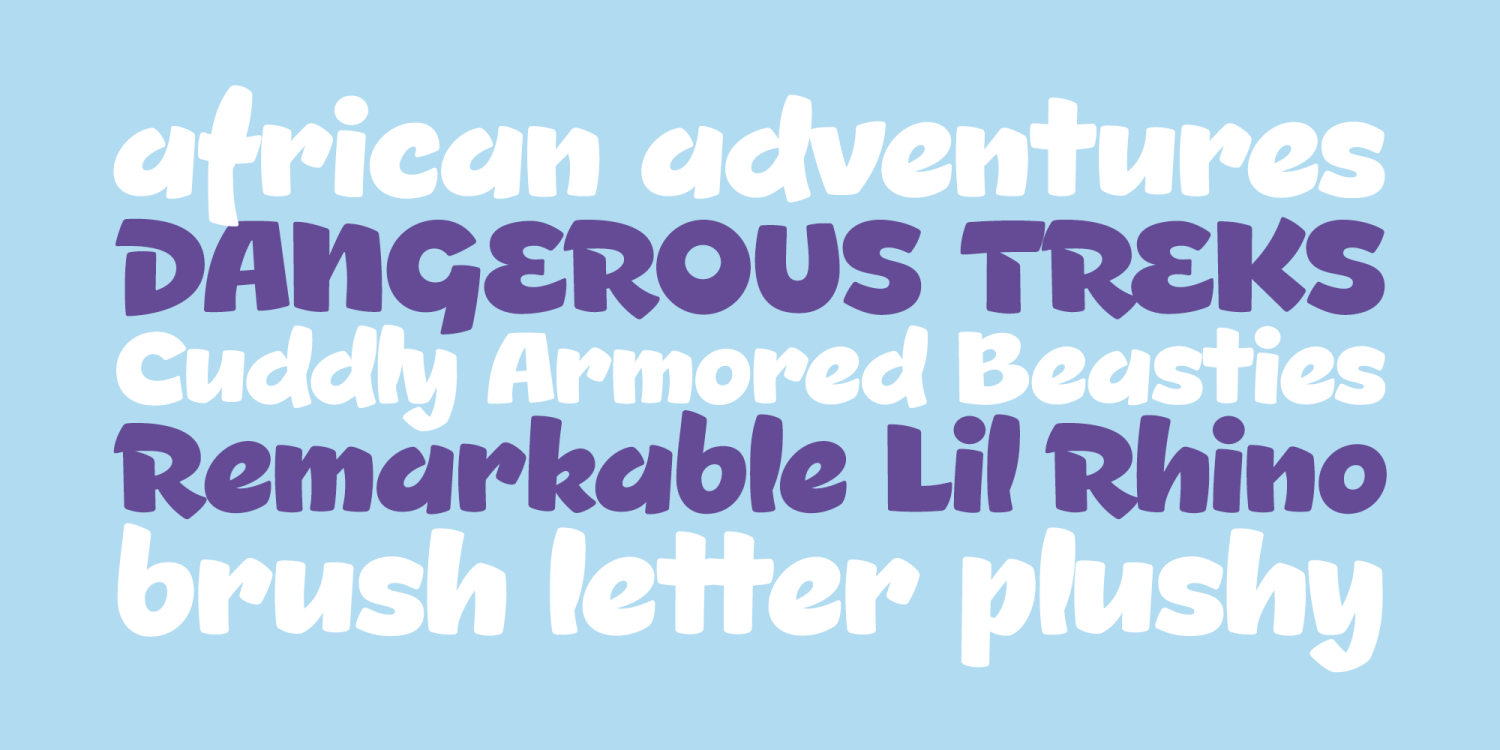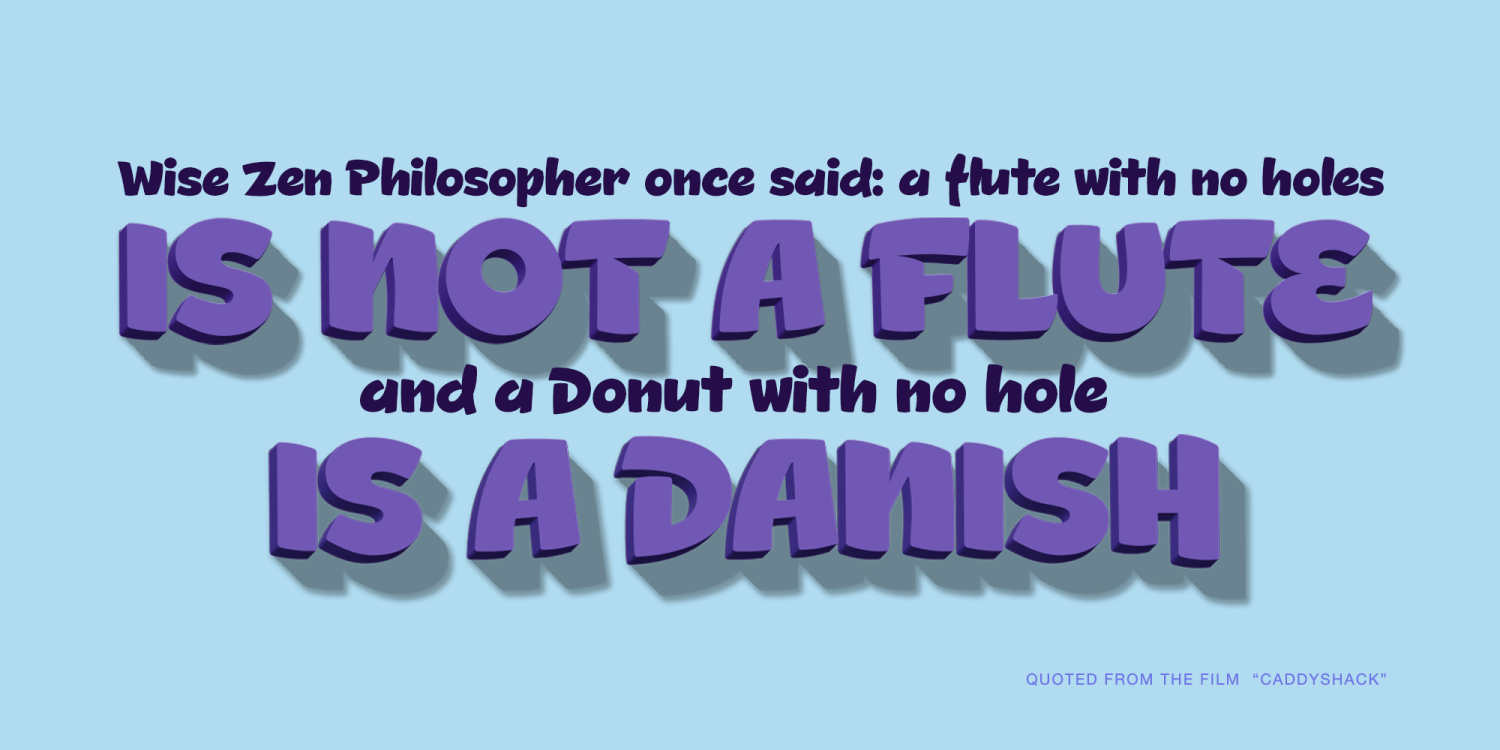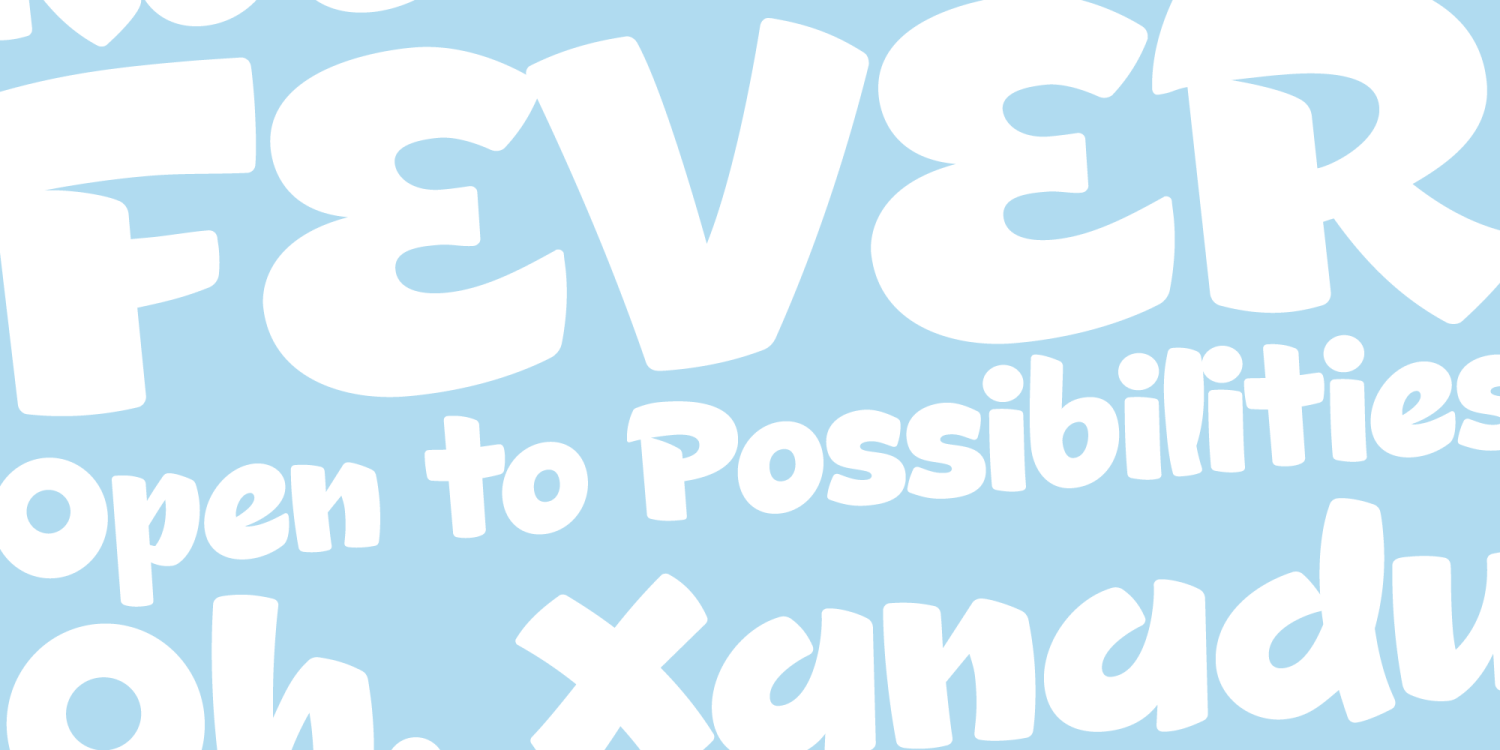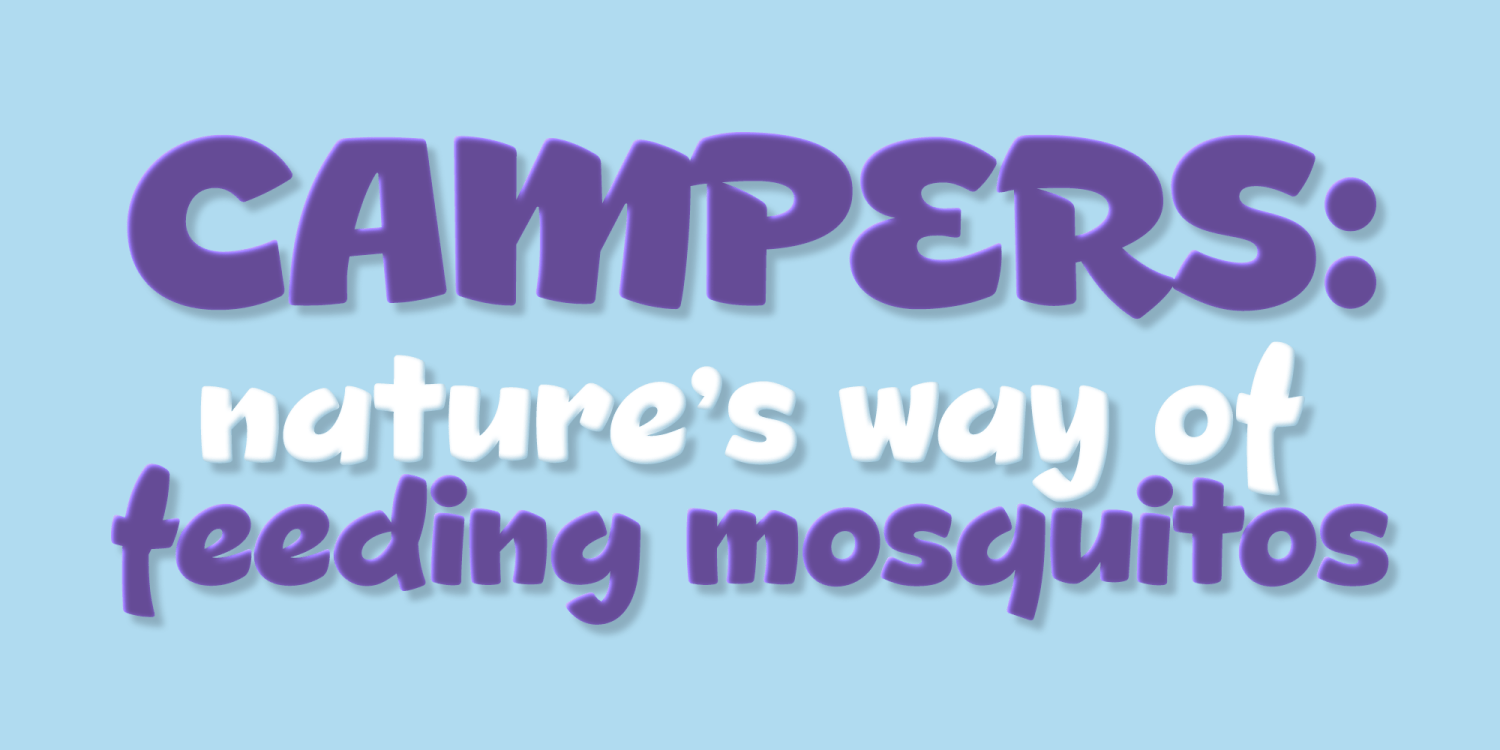
Lil Rhino is the more reserved but still slightly offbeat sister to the quirky comic font Fat Rhino typeface. You can see the resemblance, they work well together, but they also each hold their own.